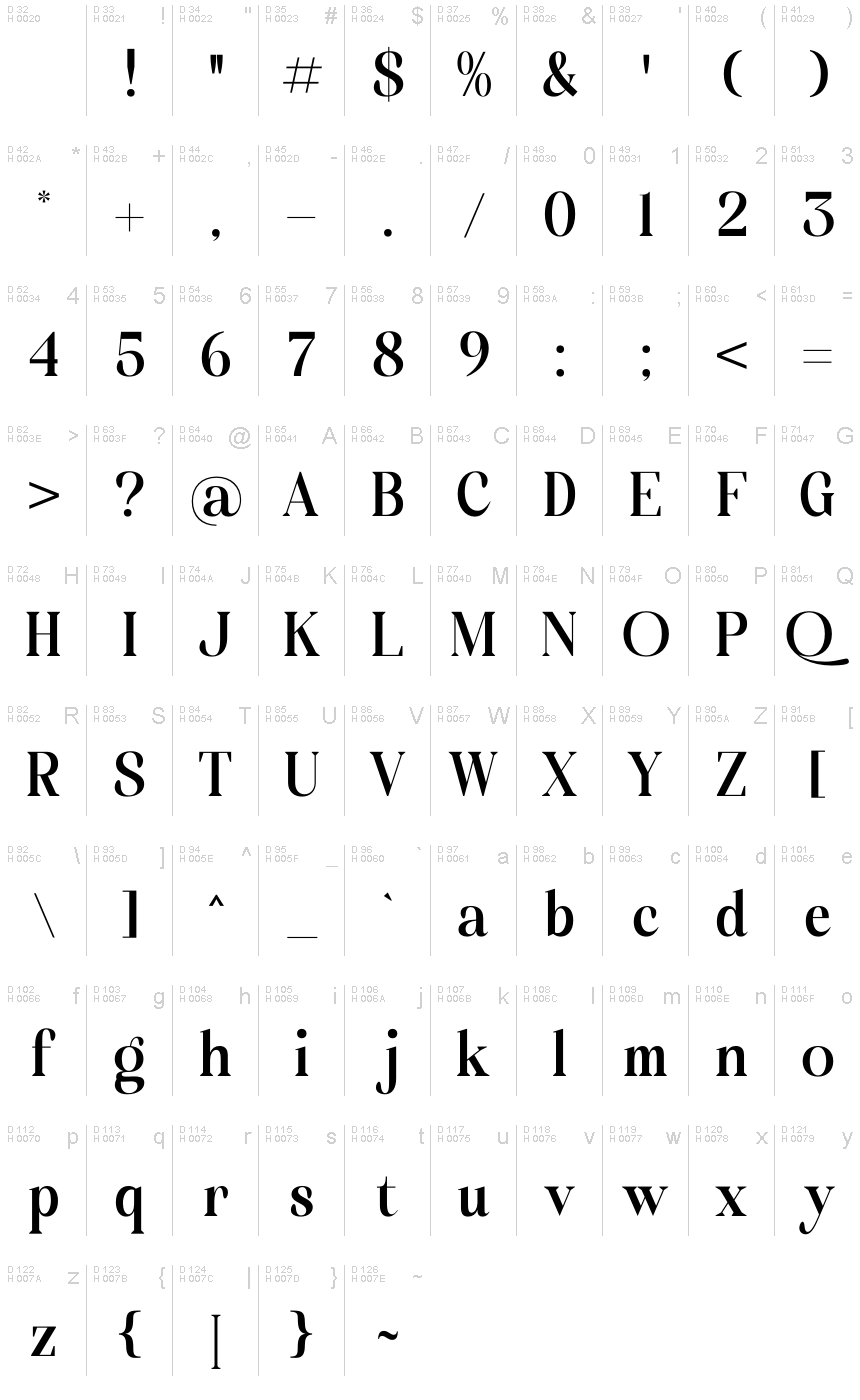
Megihari
Megihari, a serif font crafted by Storytype Studio, exudes a timeless elegance with its refined, yet approachable character. The striking interplay of thick and thin strokes creates a sense of depth and dimension, while the subtle curves and serifs lend a touch of sophistication. This font's inherent balance between tradition and modernity makes it a captivating choice for a wide range of design applications.
Megihari's versatility shines through its ability to seamlessly transition between formal and informal settings. Its versatile nature allows it to elevate editorial layouts, enhance branding narratives, and lend a touch of refined sophistication to packaging designs. Whether used for titling, body text, or decorative purposes, Megihari's distinctive personality will undoubtedly leave a lasting impression on the viewer.